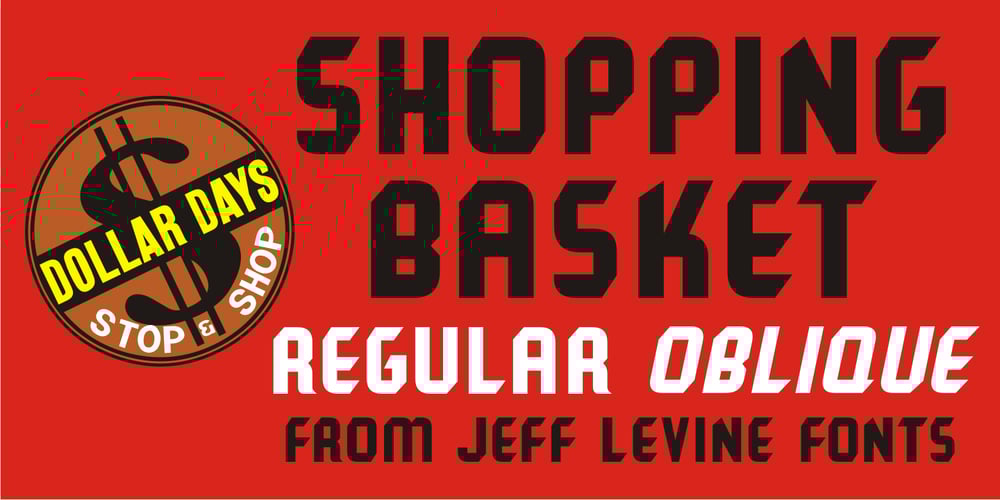
Shopping Basket JNL Font Family was designed by Jeff Levine and published by Jeff Levine. Shopping Basket JNL contains 2 styles and family package options. The cover of the vintage sheet music for “This Little Piggie Went to Market” (from the 1934 film “Eight Girls in a Boat”) features a hand-lettered sans serif with intermittent chamfered angles. This became the model for Shopping Basket JNL.